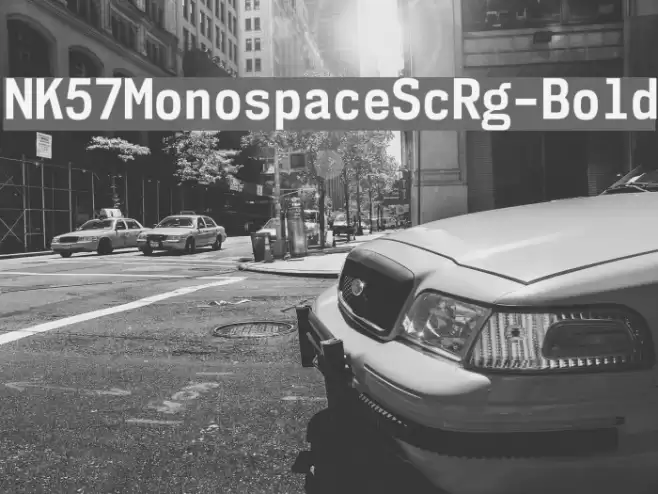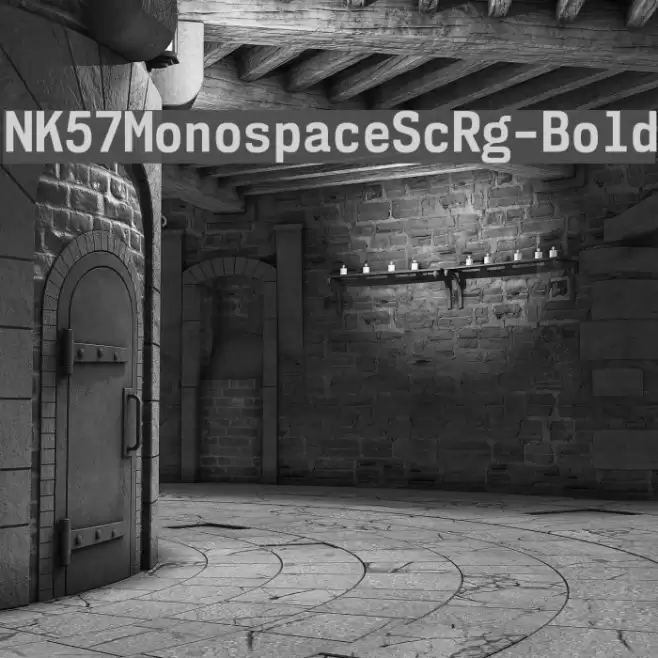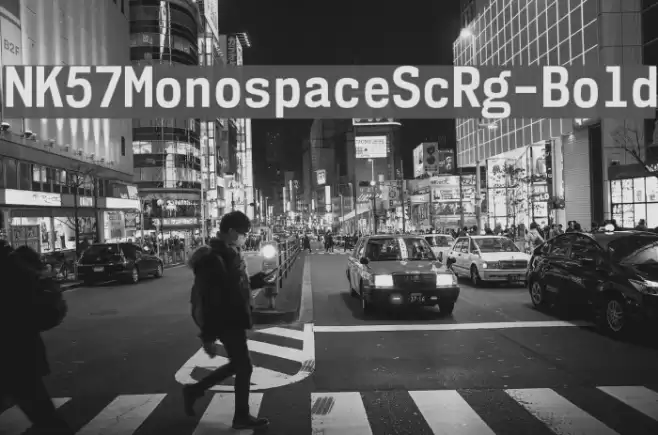
NK57MonospaceScRg-Bold Font
NK57MonospaceScRg-Bold Description
This font exhibits a clean and structured design, characterized by its monospaced nature where each character occupies the same width. The bold weight enhances its presence, making it suitable for situations where clarity and uniformity are paramount. The characters are crafted with precision, featuring straight lines and minimal curves, which contribute to its modern and technical appearance. The uppercase and lowercase letters maintain a consistent height, and the numerals are easily distinguishable. Special characters are clearly defined, adding to the font's versatility. Its simplicity and readability make it an excellent choice for coding environments, technical documentation, and any project requiring a straightforward and professional look.
A bold, monospaced font with a clean and structured design, ideal for technical and professional use from Basic fonts.
- Proposed Projects: Ideal for coding environments, technical documentation, data tables, and any project requiring uniform character spacing.
- Use Case: Coding, Technical documentation, Data tables